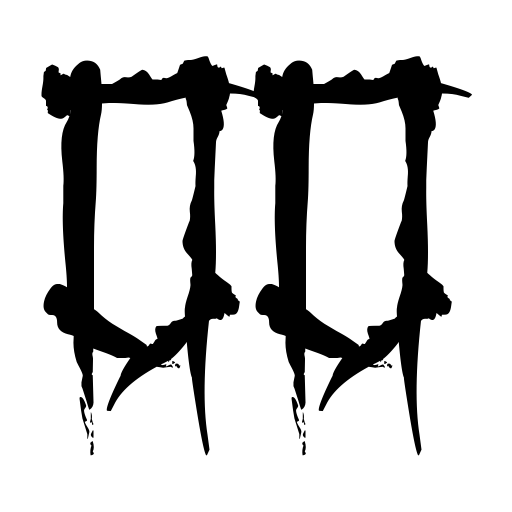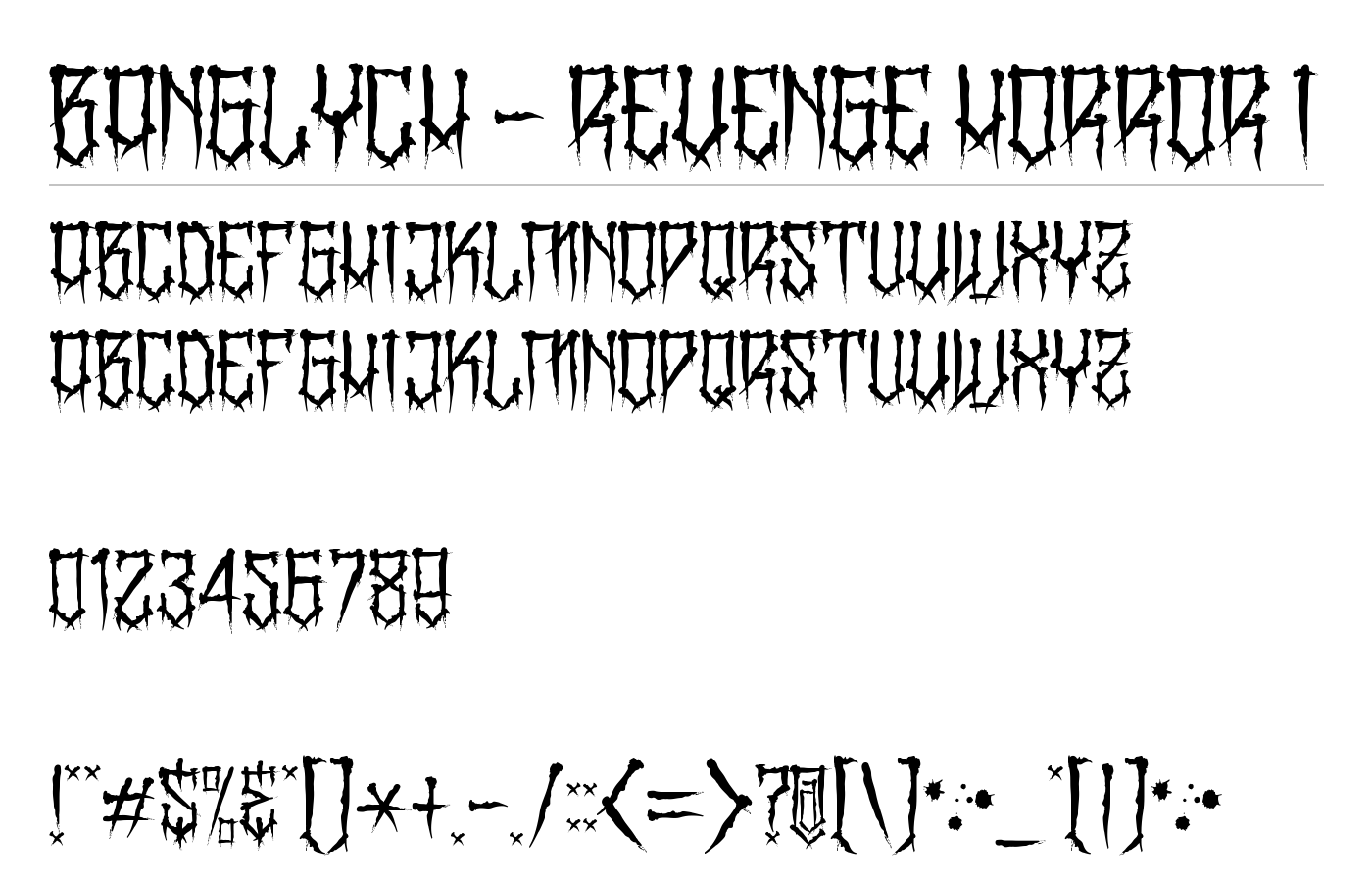
BangLYCH - Revenge Horror I is a striking, horror-themed display font characterized by its jagged, rough edges and narrow, tall letterforms that evoke a sinister, unsettling vibe. Its high contrast and irregular strokes, combined with spiky details, make it perfect for creating dramatic, eerie headlines or logos, especially in horror, thriller, or dark-themed design projects. This font’s unique, hand-crafted look works best in bold, eye-catching contexts where a strong, frightening atmosphere is desired.
BangLYCH - Revenge Horror I Font
About BangLYCH - Revenge Horror I Font